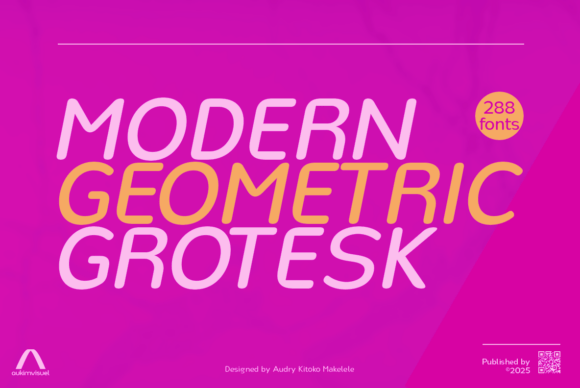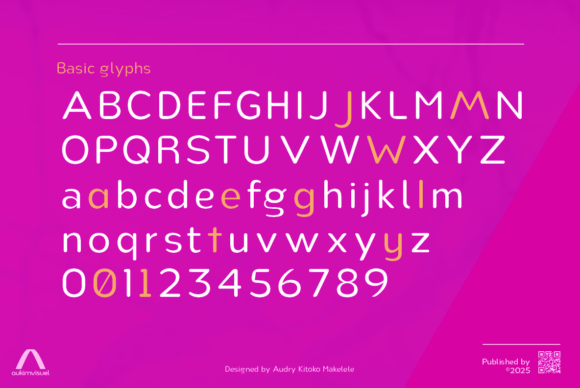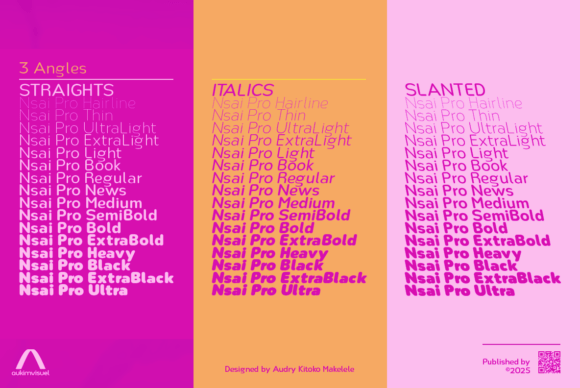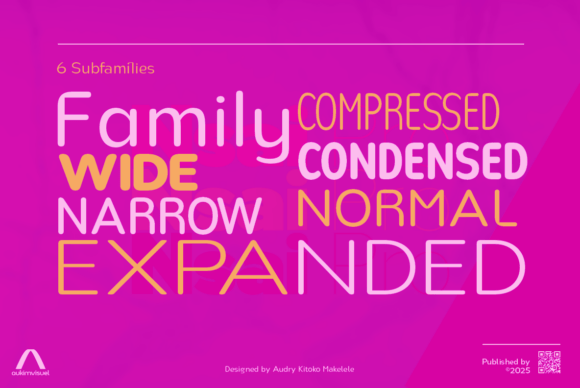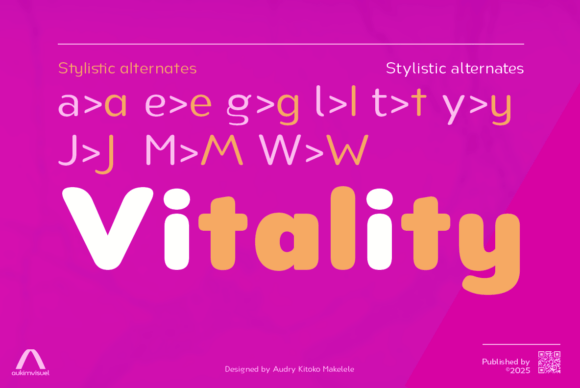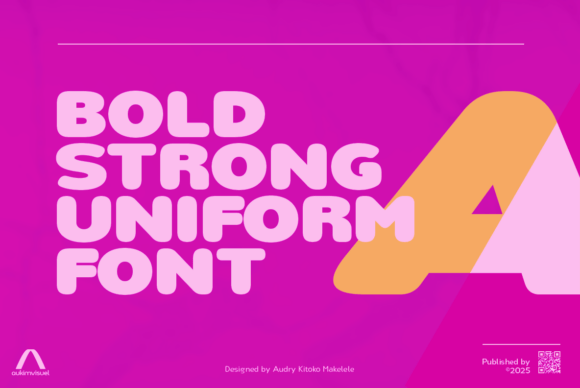
Introduction to Nsai Pro Rounded Compressed Font
As a designer, you know the thrill of bringing a creative project to life. It’s the moment when all the elements come together, and your vision takes shape. But often, the difference between a good design and a great one lies in the details – and that’s where typography comes in. A well-chosen font can elevate your design and make it truly stand out. That’s why we’re excited to introduce the Nsai Pro Rounded Compressed Font, a game-changing design resource that’s set to revolutionize the way you create.
This high-quality font is more than just a pretty face; it’s a powerful tool that offers exceptional linguistic coverage, precision, and consistency. With over 3,750 glyphs, it’s the perfect choice for designers who want to create professional-looking designs with ease. Whether you’re working on an editorial, digital, or branding project, the Nsai Pro Rounded Compressed Font is sure to impress. And the best part? It’s available for free download, complete with a transparent background that makes it easy to use in any design environment.
Key Features of Nsai Pro Rounded Compressed Font
- High-quality design resource ideal for creative projects requiring a modern, rounded font style.
- Resolution-independent font, suitable for use in both print and digital applications, including web design and graphic design.
- Unique rounded design with a compressed style, providing a distinctive look for creative projects and design materials.
- Supports a wide range of languages, making it a versatile design resource for global projects and multilingual content.
- Designed to be highly legible, even at small font sizes, making it an excellent choice for body text and headings in various design contexts.
Honest Review: Nsai Pro Rounded Compressed Font
I recently had the chance to work with the Nsai Pro Rounded Compressed Font, and I’m excited to share my thoughts on this design resource. The first thing that caught my eye was the high-quality design of the font, with smooth lines and a clean aesthetic that makes it perfect for a creative project.
One of the standout features of the Nsai Pro Rounded Compressed Font is its versatility. It’s available in a range of weights, making it easy to use for both body text and headings. The rounded design also gives it a friendly and approachable feel that works well for a variety of industries.
- ✨ High-quality design with smooth lines and a clean aesthetic
- ✨ Versatile with a range of weights available
- ✨ Friendly and approachable design
- ⚠️ Not ideal for use in small font sizes
Overall, I’m impressed with the Nsai Pro Rounded Compressed Font. While it may have some limitations, its high-quality design and versatility make it a great addition to any design project. The free download is also a major bonus, making it accessible to designers of all levels.
Tips for Getting the Most Out of Nsai Pro Rounded Compressed Font
This high-quality design resource is perfect for creative projects, especially those requiring a clean and modern aesthetic. To get the most out of it, use it on a transparent background and pair it with other complementary fonts for a visually appealing design.
The Nsai Pro Rounded Compressed Font is commonly used in digital design, branding, and marketing materials, such as social media graphics, flyers, and business cards. Its clean and modern design makes it an ideal choice for any creative project requiring a high-quality design resource.